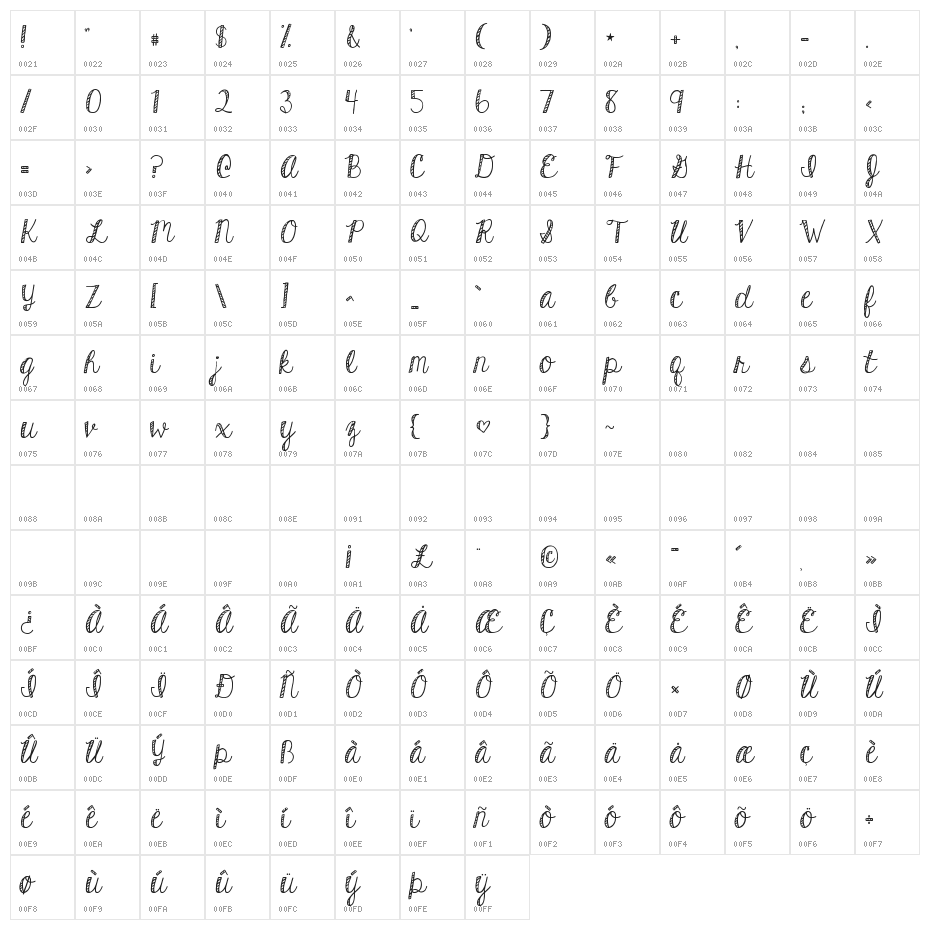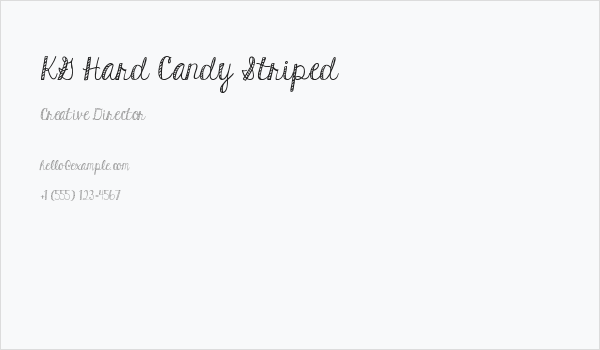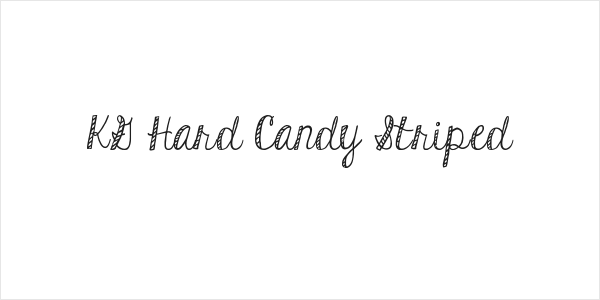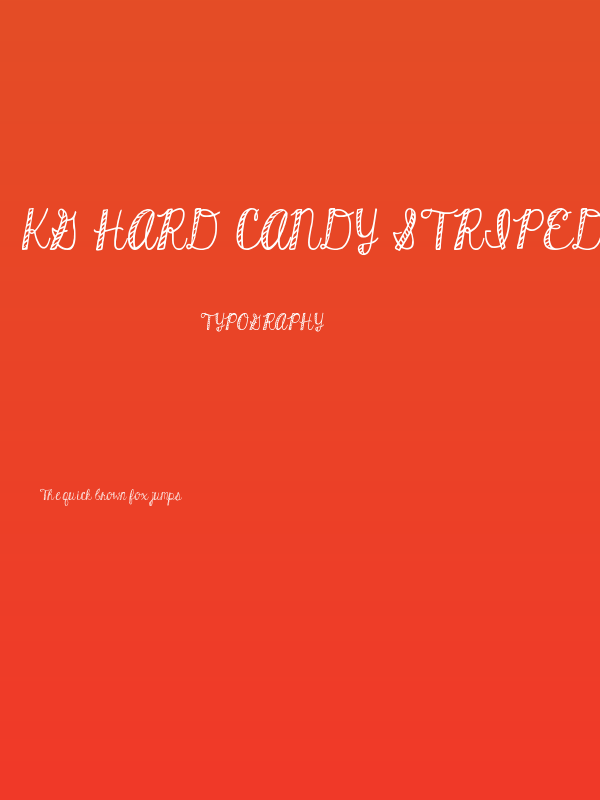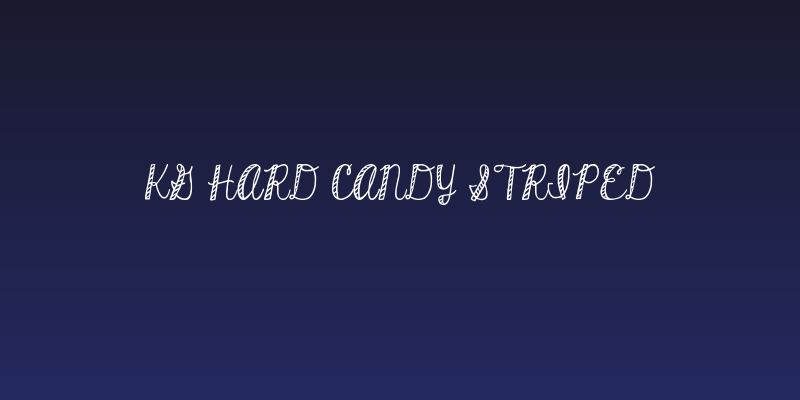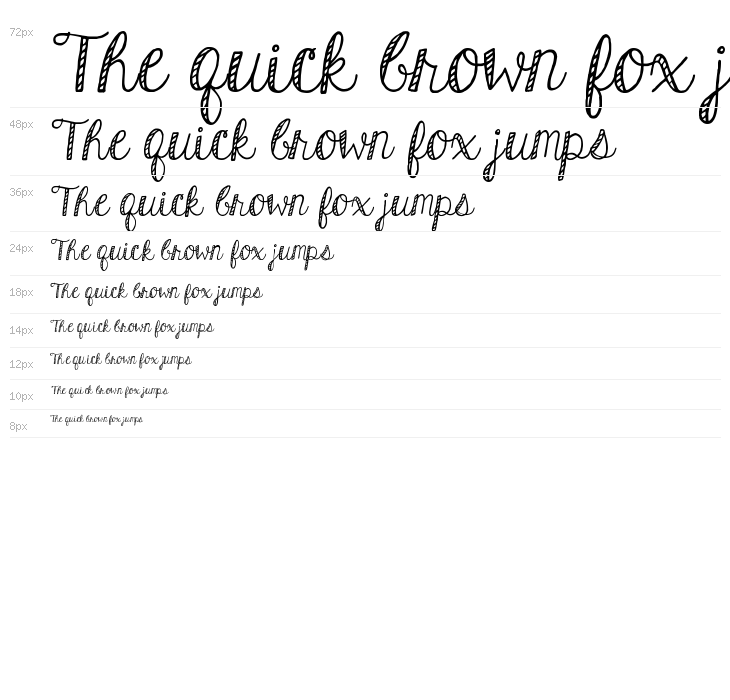
KG Hard Candy Striped Font
KG Hard Candy Striped Description
This playful and whimsical font features a striped pattern within each character, giving it a candy-like appearance. The letters are crafted with a script style, showcasing a blend of elegance and fun. The uppercase letters maintain a consistent height, while the lowercase letters have a charming flow with loops and curves. The numbers and special characters follow the same striped theme, ensuring a cohesive look throughout. This font is perfect for projects that require a touch of creativity and joy, such as children's books, playful branding, or festive invitations.
Use CaseLogos, Invitations, Creative projects
Proposed ProjectsIdeal for children's books, playful branding, festive invitations, and creative projects.